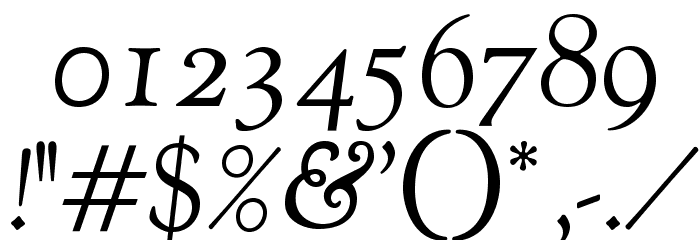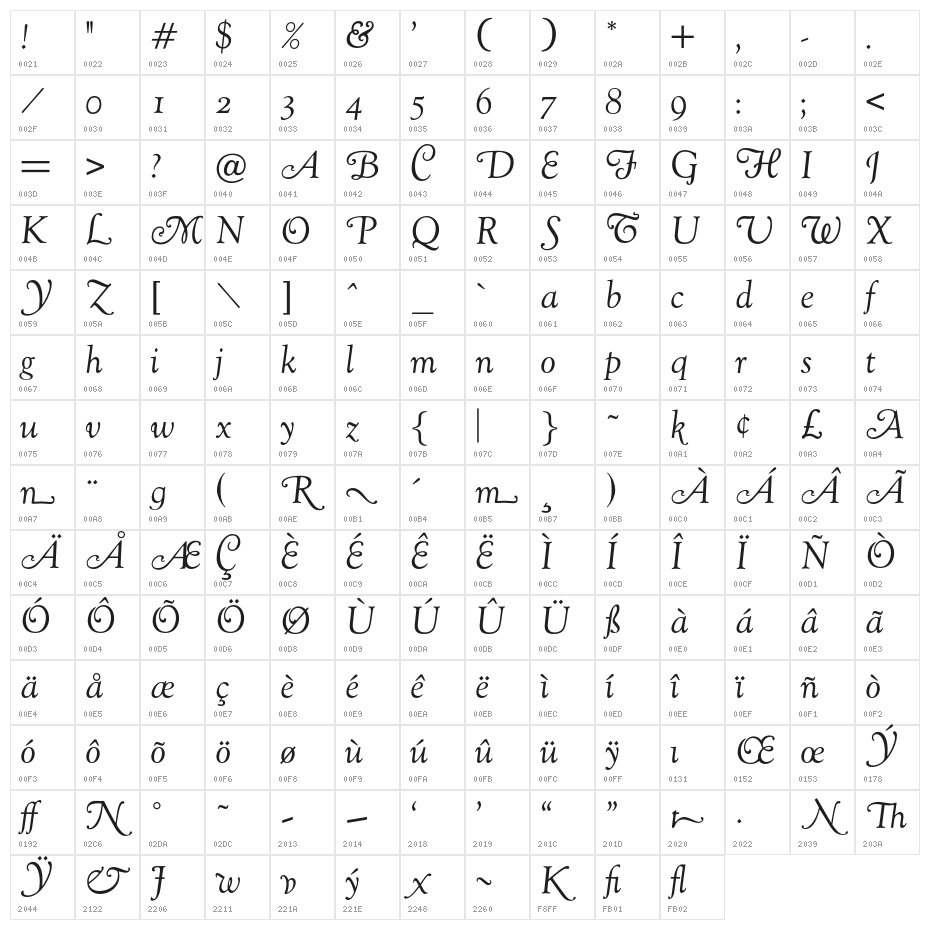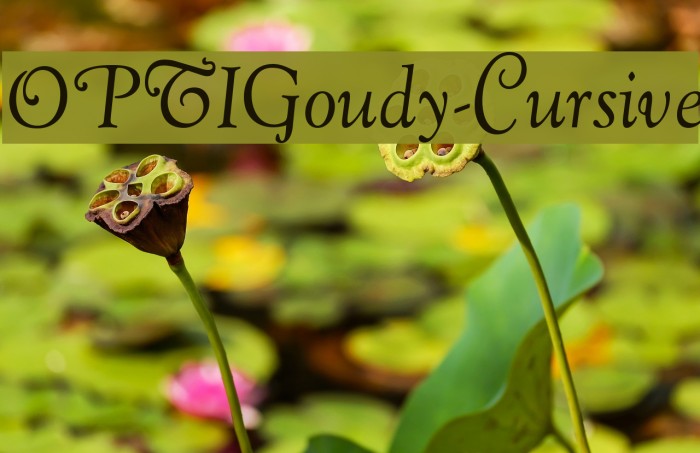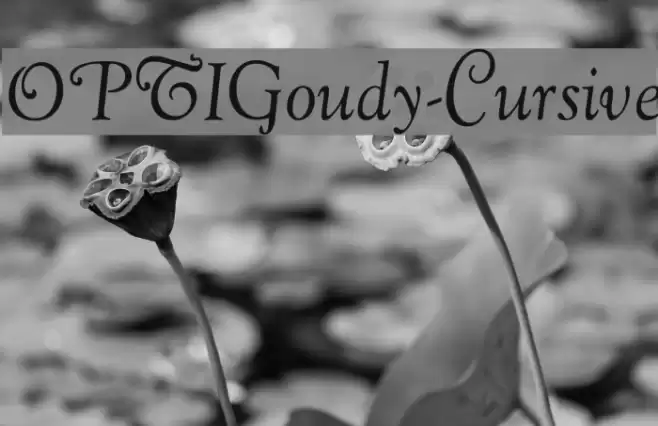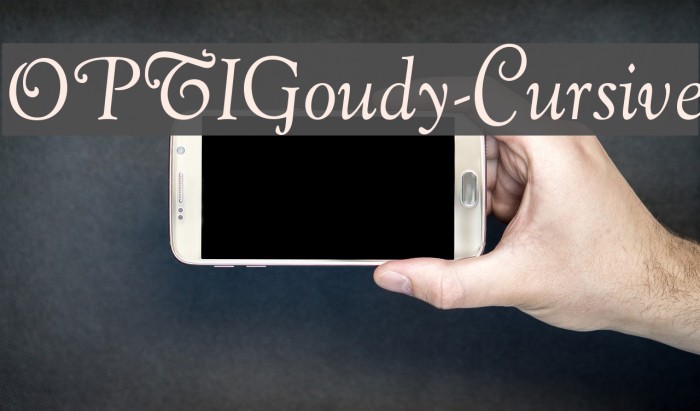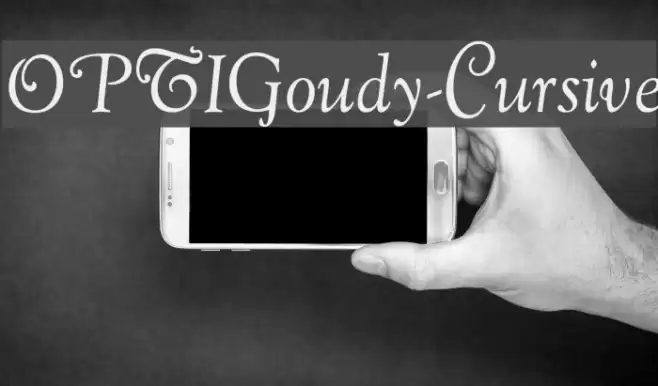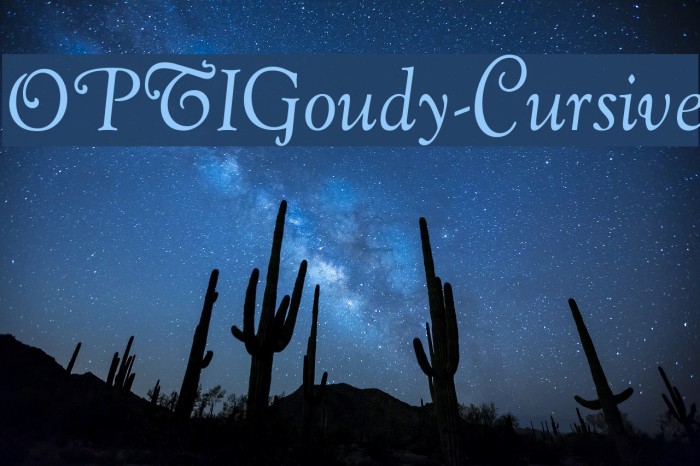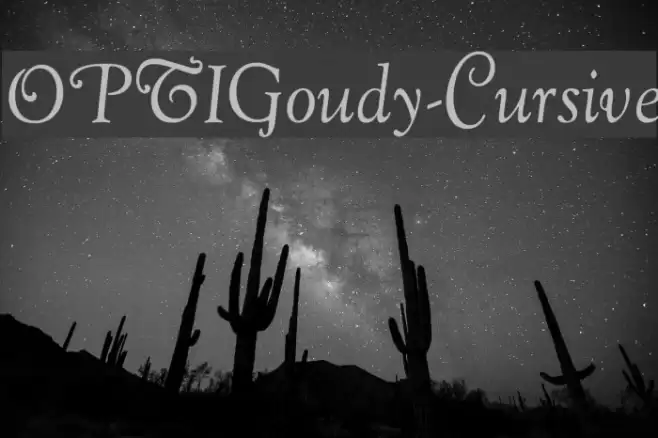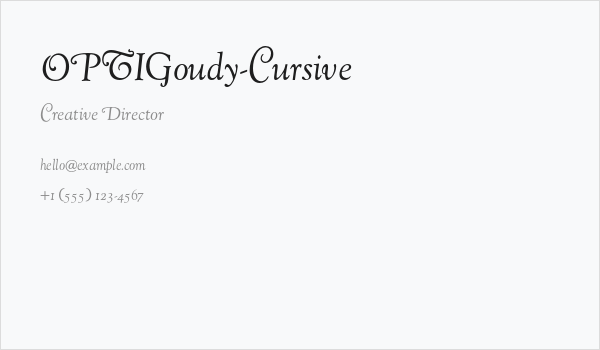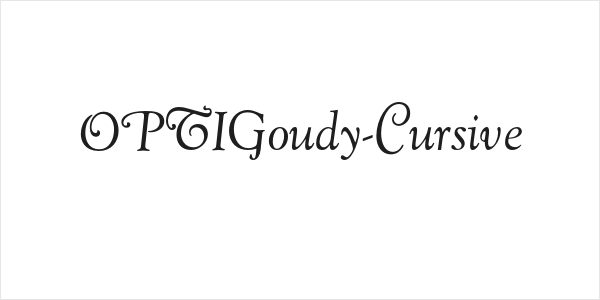
OPTIGoudy-Cursive Font
OPTIGoudy-Cursive Description
This font features a classic cursive style with elegant, flowing lines and a sophisticated appearance. The uppercase letters exhibit a graceful, sweeping design with intricate curves, while the lowercase letters maintain a more subdued yet stylish form. The numerals are clear and distinct, complementing the overall aesthetic. Special characters are designed with the same attention to detail, adding to the font's versatility. The font's balance between readability and decorative flair makes it suitable for a variety of applications.
Overall StyleClassic
Use CaseHeadlines, Invitations, Decorative text
Proposed ProjectsIdeal for wedding invitations, formal event programs, elegant branding, and decorative headings.